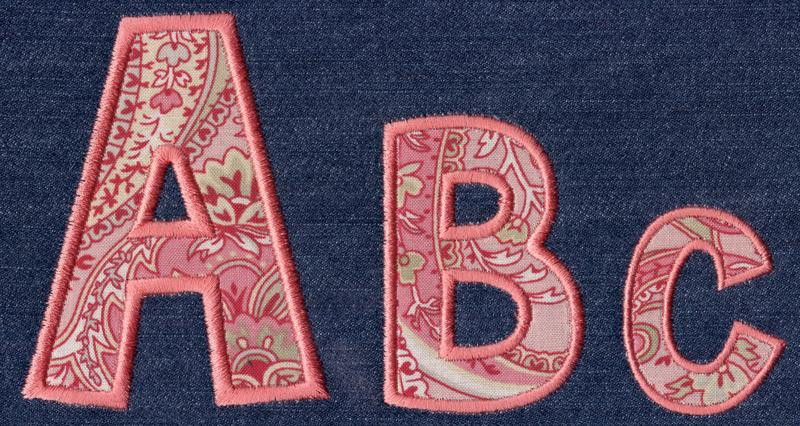
088 Cheri Applique Font
Cheri Applique Font comes in 2", 3", 4" and 5" heights based on the capital "A". Each size includes upper and lowecase letters and numbers. This is a "mixed case" set meaning some uppercase letters resemble lowercase letters and vice versa. Many letters are taller than the base height of the capital "A": for example some characters in the 4" set will exceed standard 4x4 hoop limitations and some characters in the 5" set will exceed standard 5x7 hoop limitations. Now Available: letters i j o with hearts instead of round dots. The alternate letters may be download with any purchase (past or present) as a separate download; all formats are included in the alternate letters download link. *Information Update 5/19/2018--alternate letters are not included in the BX format but can be imported to your lettering project in Embrilliance using the "merge stitch file" command. Revised July 2018